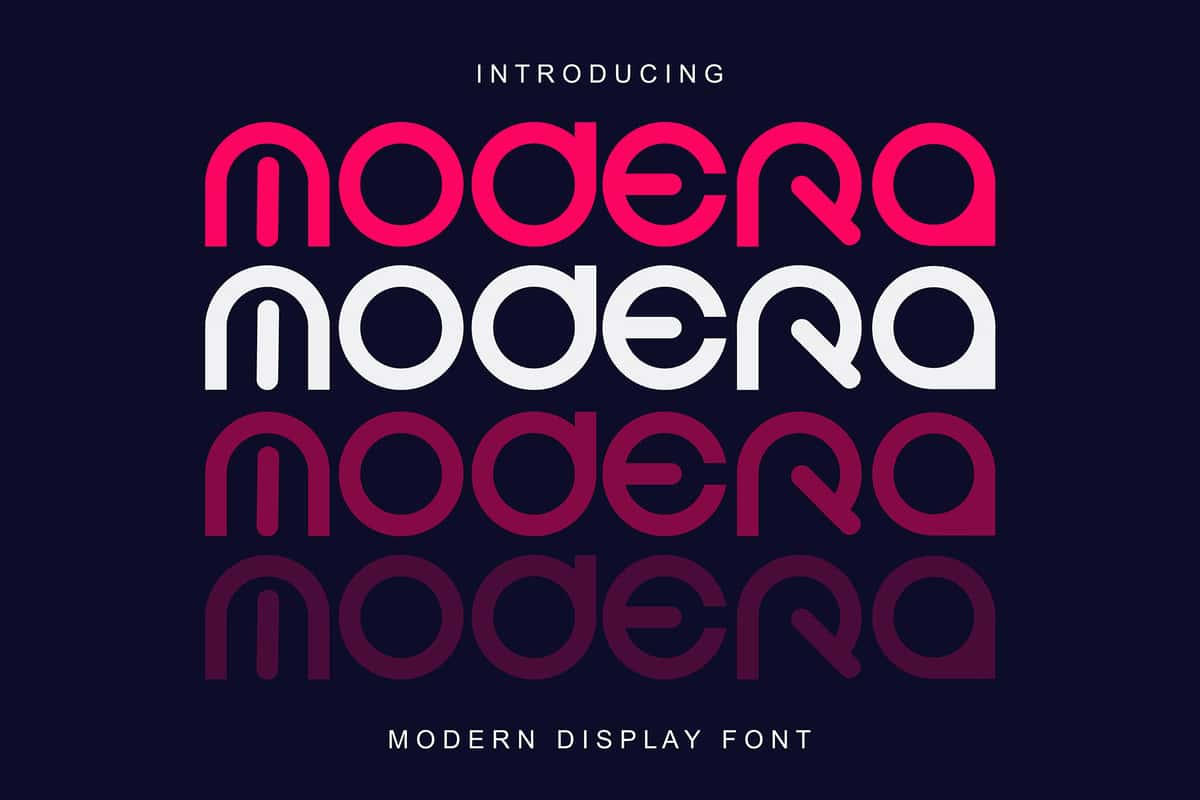
Modera
Modera is a modern rounded display font designed for bold branding, stylish headlines, and clean contemporary visuals. Built from smooth geometric shapes and carefully balanced proportions, it brings a sleek, confident personality to any design. The rounded corners and fluid curves give Modera a friendly, approachable feel, while the overall structure stays strong and professional, making it perfect for modern brands and digital projects. This font includes uppercase and lowercase letters, numb